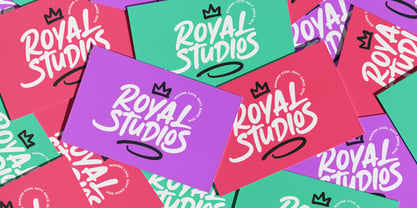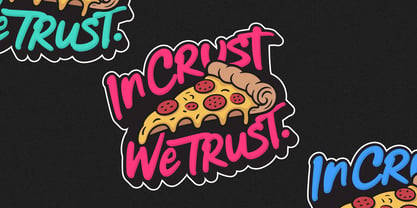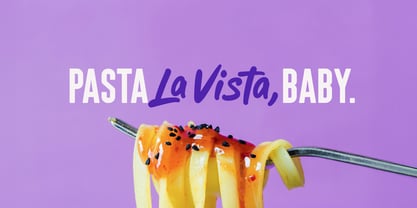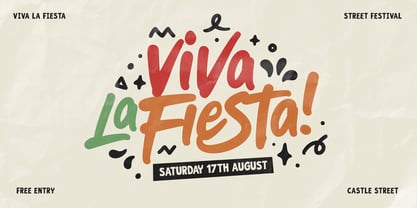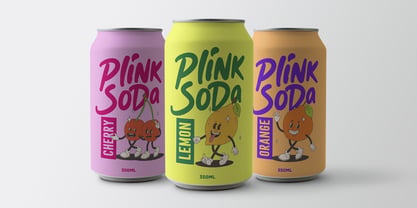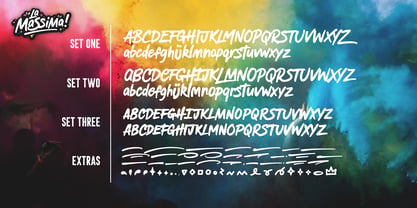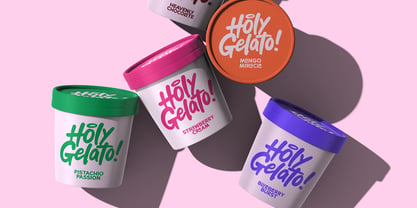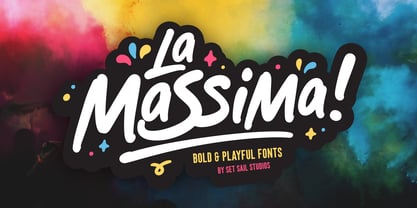
La Massima
by Set Sail Studios
The La Massima Font Family was designed by Sam Parrett and published by Set Sail Studios. La Massima contains 4 styles and family package options. More about this family
Add some fun energy to your designs with La Massima! A set of 4 bold hand-drawn fonts, designed to create natural, free-flowing and playful typography. Perfect for vibrant branding, product packaging, and head-turning display text. The great thing about this set is how easy it is to create totally custom looking type layouts – this is achieved by having two extra alternate sets of letters beyond the regular font (giving you 6 variations of each letter), as well as a bonus extras font containing 52 playful underline-swashes and doodles. Here’s a closer look at what’s included;     La Massima One • A clean & energetic hand-drawn font, includes a full set of uppercase, lowercase, numerals and punctuation. La Massima Two • This is an alternative version of La Massima One, with a completely new set of upper & lowercase characters. La Massima Three • A third set of characters based on the original font, containing 2 full sets of small-caps characters. Turn caps lock on & off to switch between the 2 variations. ✨Pro Tip! If you really want your font to look custom drawn, try mixing up letters from all 3 of the font sets in the same word. Vary the sizes and try individually placing each letter to give it a more unique layout! La Massima Extras • Simply install this as it’s own font and type any character to generate 1 of 52 fun underline swashes (A-Z) and doodles (a-z). A great way to add a little extra flair and customisation to your La Massima text.     Language Support; English, French, Italian, Spanish, Portuguese, German, Swedish, Norwegian, Danish, Dutch, Finnish, Indonesian, Malay, Hungarian, Polish, Croatian, Turkish, Romanian, Czech, Latvian, Lithuanian, Slovak, Slovenian.